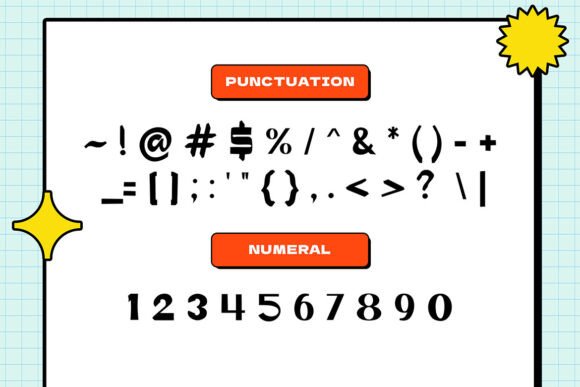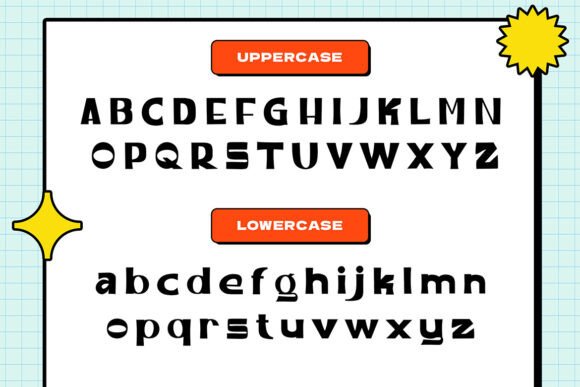
Introduction to Potent Sans Font
Do you remember the moment when your design idea finally came to life? The rush of excitement as you envisioned your concept transforming into a stunning visual masterpiece? For many designers, this moment is what drives us to push the boundaries of creativity and strive for perfection. And when it comes to making a lasting impression, having the right font can be the difference between a good design and a great one.
That’s where the Potent Sans Font comes in – a game-changing design resource that’s about to revolutionize the way you approach your creative projects. With its bold and modern aesthetic, this high-quality font is perfect for adding impact to your designs and making them stand out from the crowd.
About the Potent Sans Font
Key Features of Potent Sans Font
- High-quality design resource suitable for various creative projects, including graphic design, digital art, and publishing.
- Characterized by its clean, modern, and highly legible sans-serif design, making it perfect for body text and headings.
- Designed to be highly versatile and suitable for a wide range of applications, from print to digital media.
- Unique characteristics include its geometric shapes and subtle rounded edges, giving it a friendly and approachable feel.
Honest Review: Potent Sans Font
I recently came across the Potent Sans Font and I must say, it’s a game-changer for any creative project. The high quality design and clean lines make it perfect for a wide range of applications.
Here are some things that work well about this font:
- ✨ The font is highly legible, even at smaller sizes.
- ✨ The design is modern and sleek, making it perfect for contemporary designs.
- ⚠️ The font may not be as suitable for very formal or traditional designs.
- ⚠️ Some users may find the font too minimalist, lacking in personality.
Overall, I’m impressed with the Potent Sans Font and would definitely recommend it to designers working on creative projects. It’s a versatile and high-quality design resource that’s sure to elevate any design.
Common Use Cases for Potent Sans Font
Potent Sans Font is ideal for a variety of creative projects, including logos, business cards, and marketing materials. Its clean and modern design makes it perfect for any industry or application.